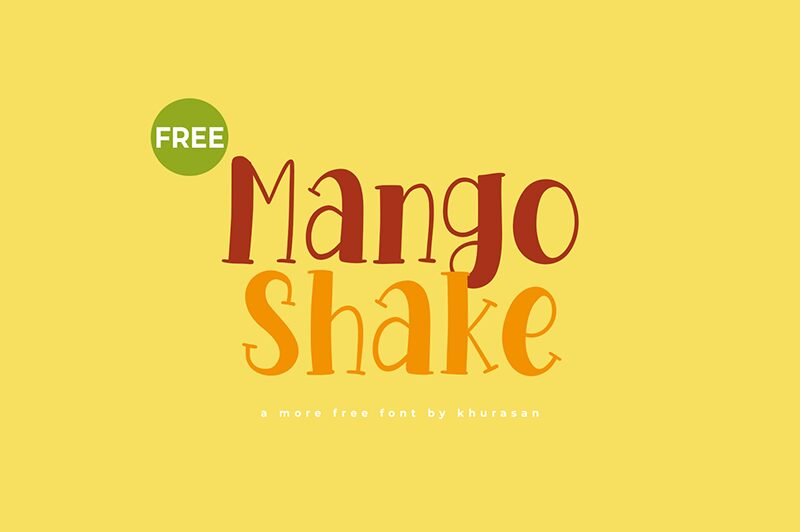
Mango Shake font, crafted by the talented designer Khurasan, is a vibrant display font that brings a playful cartoon style to any project. Its lively and whimsical letters capture attention with a dynamic bounce and quirky charm, making it ideal for creative designs needing a touch of fun.
This animated aesthetic is perfect for children's books, party invitations, or playful branding materials. Designers looking to add an energetic flair will find Mango Shake an irresistible choice. Plus, as a free font available for download, it's accessible for various applications-ensuring your next project stands out with personality and originality.
Whether you're enhancing visual appeal or crafting engaging content, Mango Shake promises to deliver excitement and creativity effortlessly.